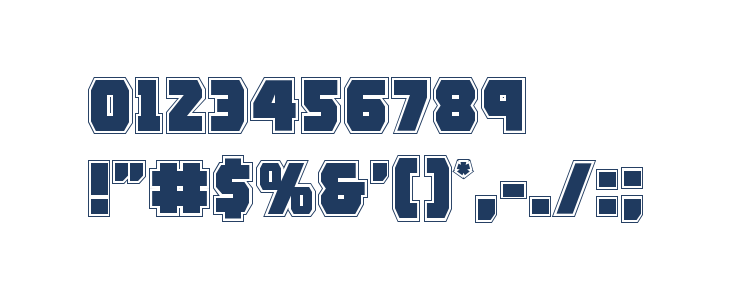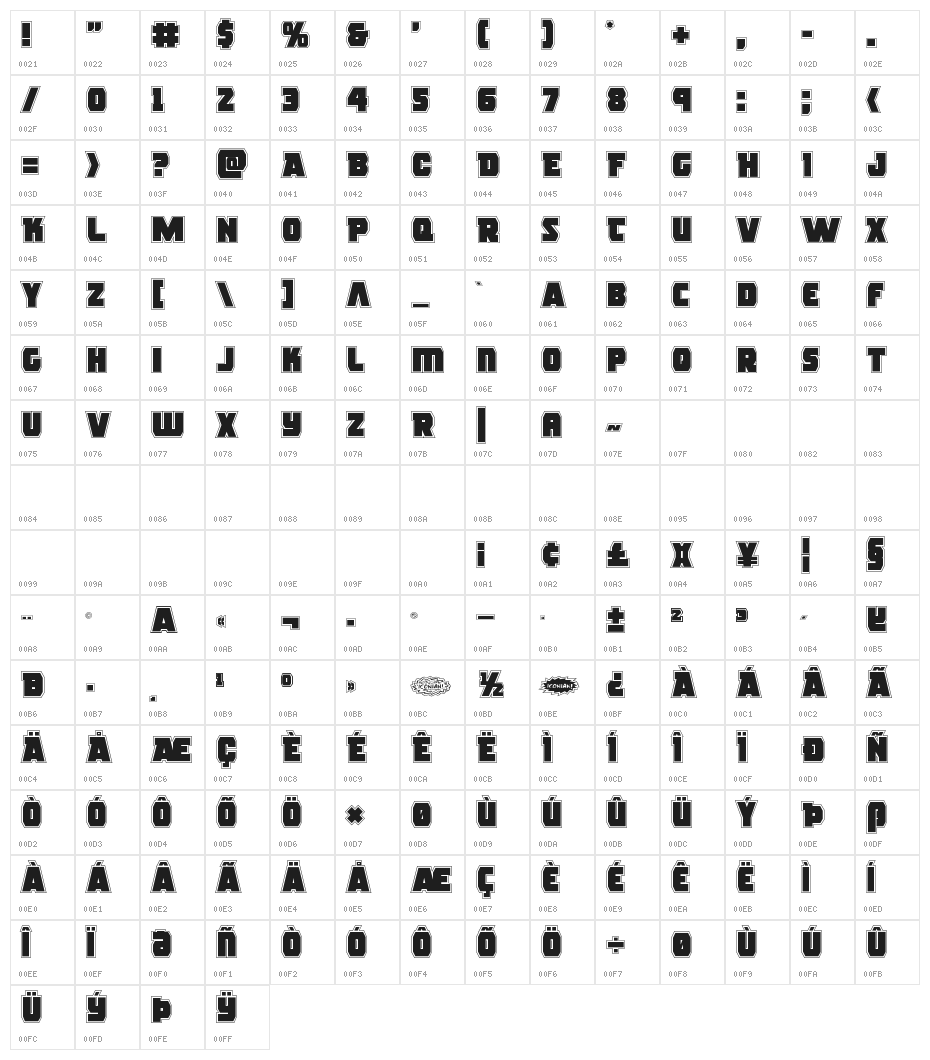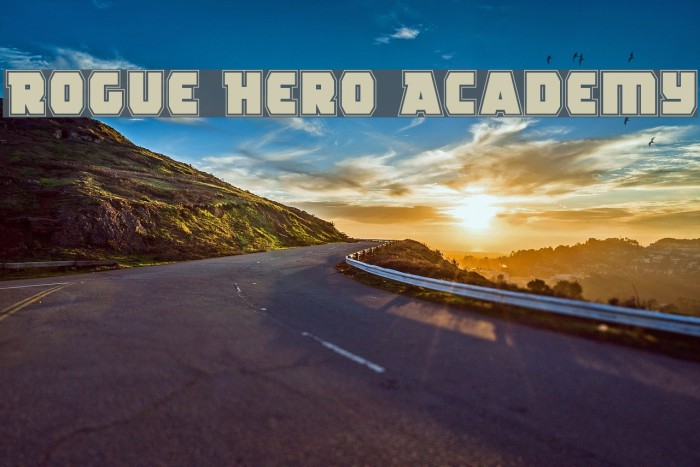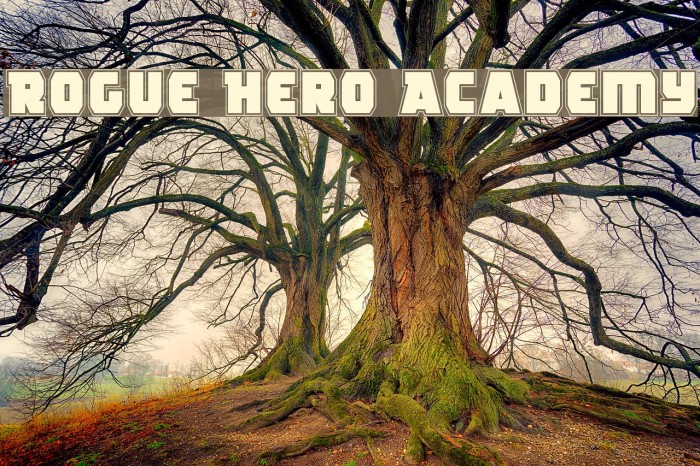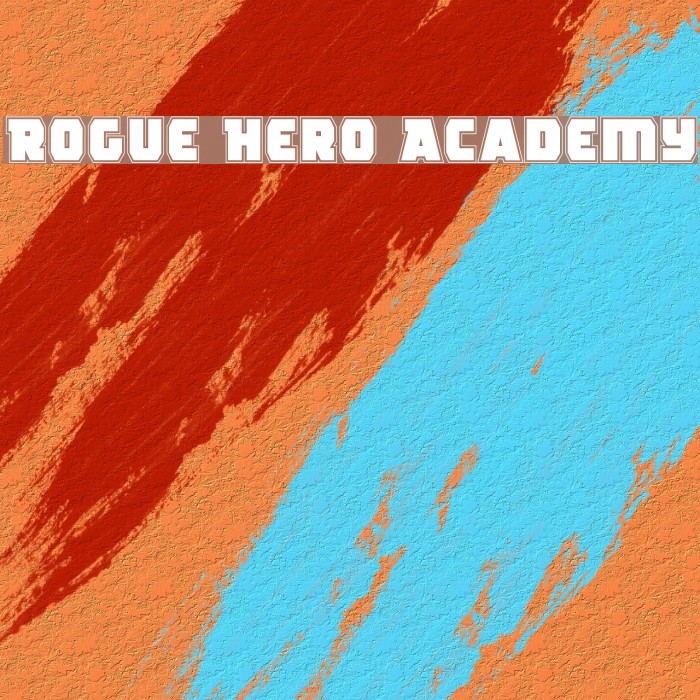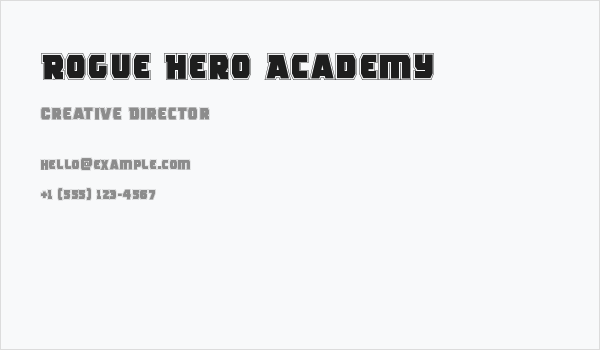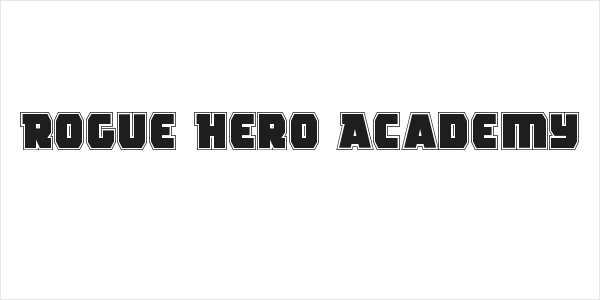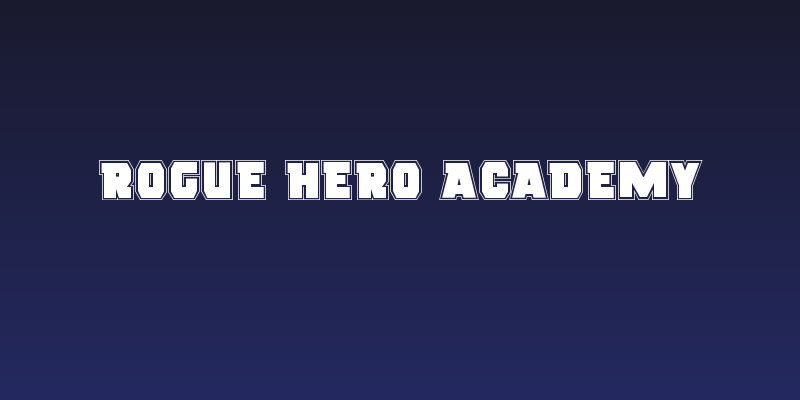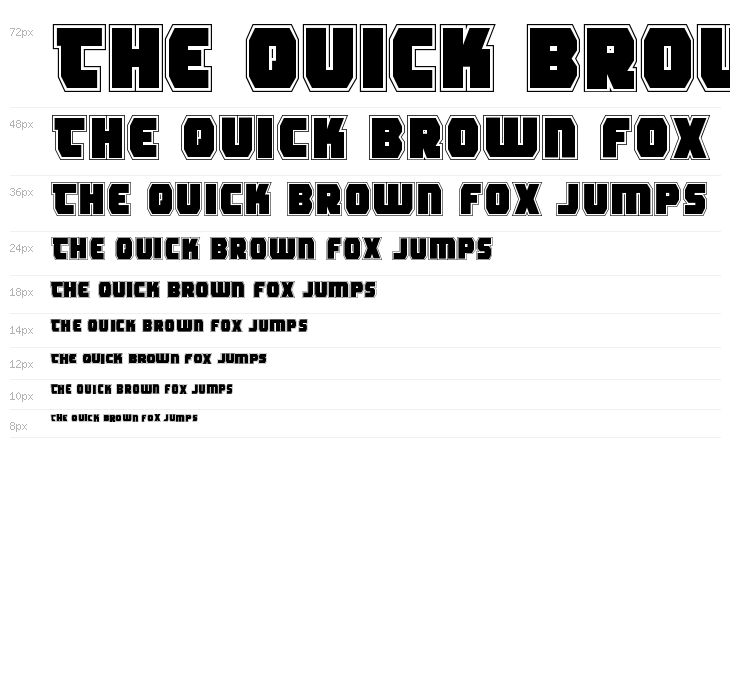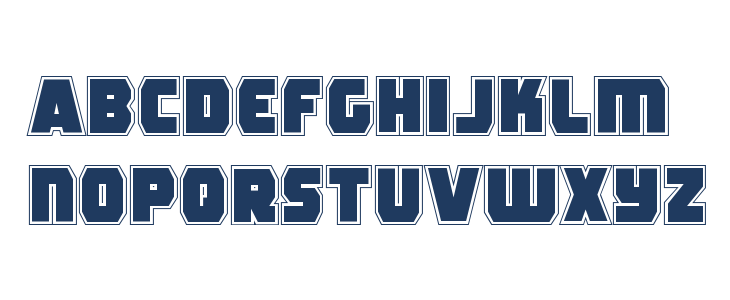
Rogue Hero Academy Font
Rogue Hero Academy Description
This font features a bold, geometric design with a strong, impactful presence. The characters are outlined with a thick border, creating a three-dimensional effect that enhances its visual appeal. The uppercase and lowercase letters maintain a consistent style, with sharp angles and a blocky structure. The numbers and special characters follow the same design principles, ensuring uniformity across all elements. This font is ideal for projects that require a strong, attention-grabbing typeface.